Coffee is no longer just a beverage—it’s an experience. From specialty coffee roasters and artisan cafés to premium bean packaging and takeaway cups, branding has become one of the biggest factors influencing customer perception. Before someone tastes your coffee, they have already formed an opinion based on your logo, packaging, menu, and overall visual identity.
Typography plays a central role in creating that first impression. The right font helps communicate whether a café feels luxurious, handcrafted, modern, minimalist, or approachable. In today’s competitive coffee market, thoughtful typography can be just as important as great coffee itself.
Walk into any successful coffee shop and you’ll notice that every visual element feels intentional. The logo, menu board, coffee bags, cups, social media posts, and signage all share a consistent visual language. Typography ties these elements together and transforms them into a recognizable brand.
One of the biggest challenges in coffee branding is differentiation. Hundreds of cafés may serve similar products, but memorable typography helps customers remember one brand over another. A distinctive typeface can communicate quality, craftsmanship, and personality before a single sip is taken.
Luxury coffee brands often lean toward elegant serif typography. These fonts communicate refinement, heritage, and premium quality. They work exceptionally well for specialty beans, limited-edition roasts, premium subscriptions, and boutique cafés targeting customers who appreciate craftsmanship.
For premium coffee branding, Lucentia offers timeless elegance with editorial-inspired details. Its refined contrast and sophisticated proportions make it perfect for luxury coffee bags, café logos, packaging sleeves, and premium websites.
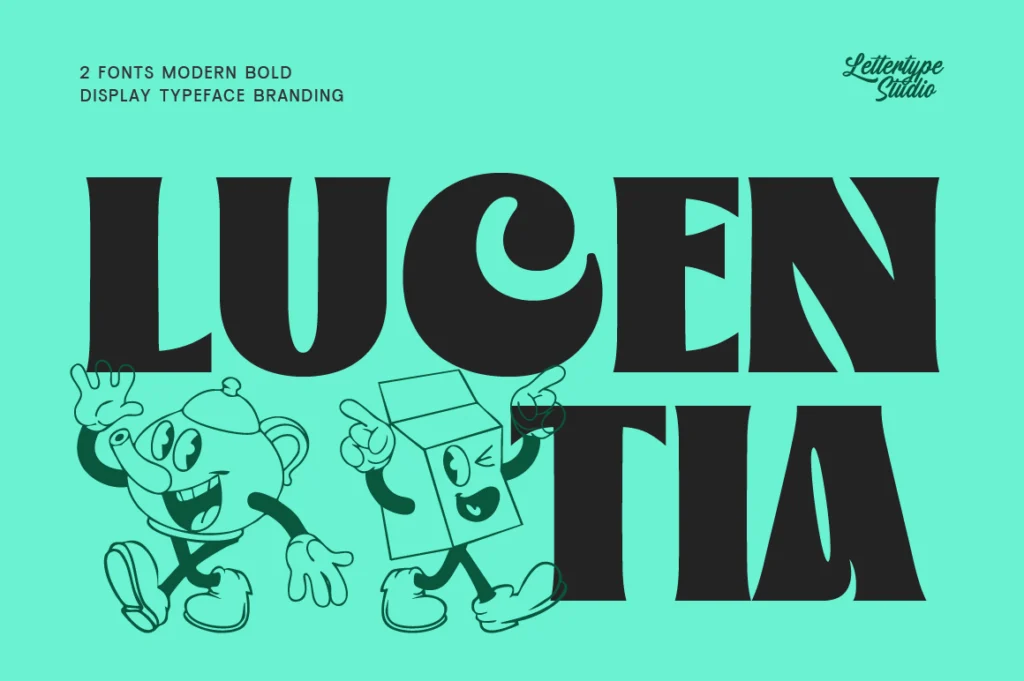
Lucentia is especially suitable for:
- Specialty coffee brands
- Premium coffee bean packaging
- Luxury café logos
- Coffee subscription services
- Editorial coffee magazines
Coffee shops that embrace artisan culture often require typography that balances tradition and modernity. Montegar delivers exactly that feeling. It combines classic elegance with contemporary styling, making it an excellent choice for independent cafés and boutique roasteries.
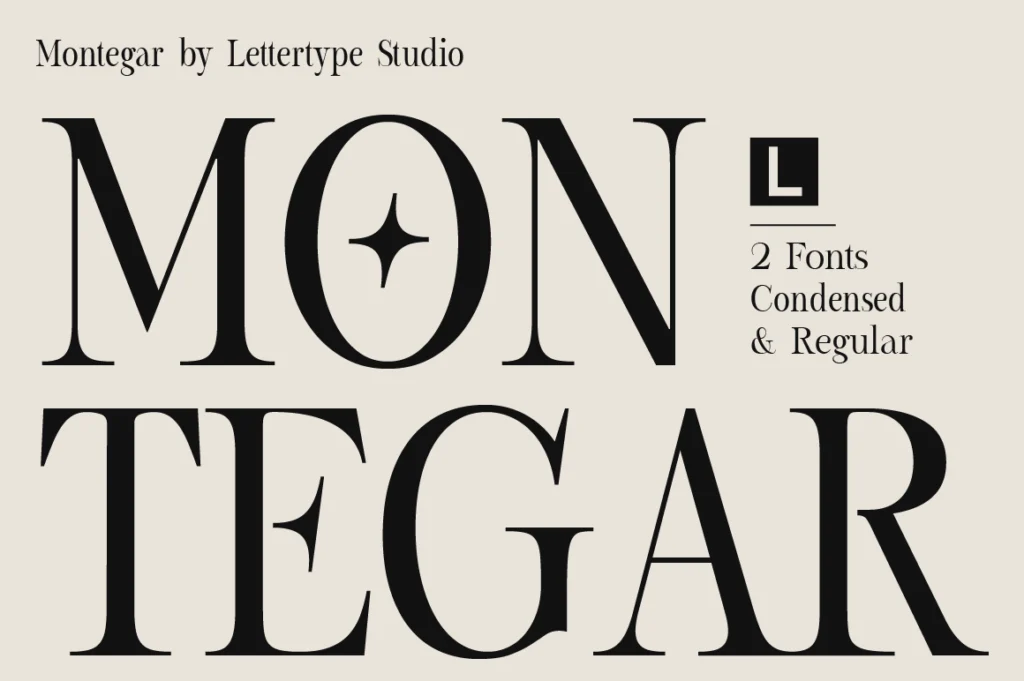
Montegar works beautifully for:
- Artisan coffee roasters
- Café branding
- Seasonal coffee collections
- Coffee event posters
- Premium merchandise
Packaging is often where customers first encounter a coffee brand. Whether displayed on retail shelves or online stores, coffee bags need typography that immediately communicates quality while remaining readable from a distance.
Becaure provides an excellent balance between sophistication and functionality. Its clean yet elegant appearance makes it suitable for product labels, coffee bags, gift boxes, and retail displays.
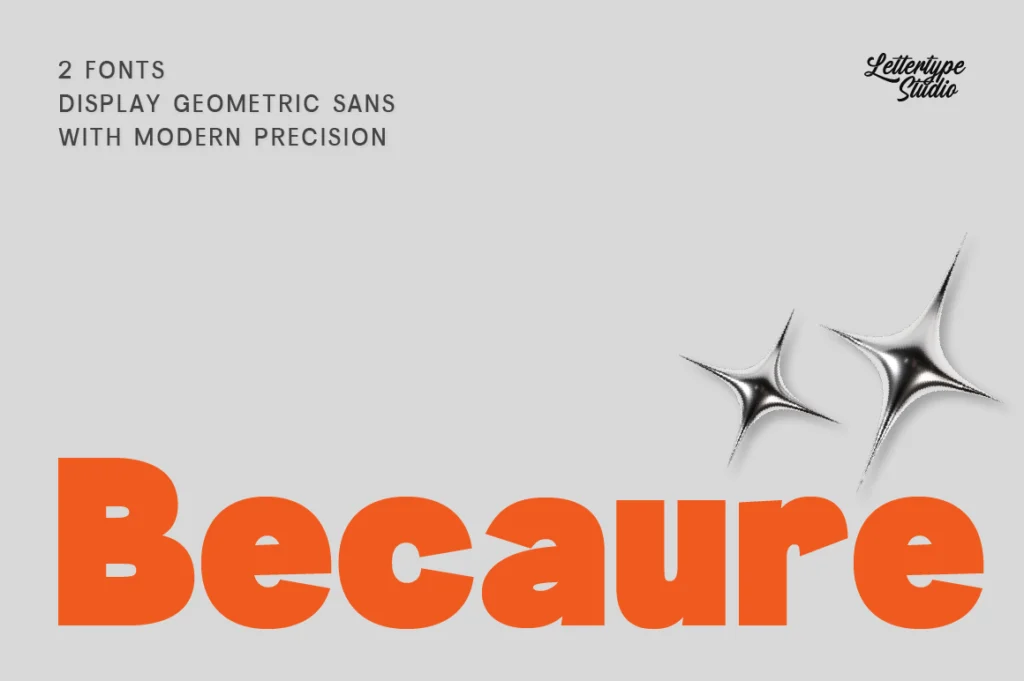
Becaure performs especially well for:
- Coffee bean bags
- Drip coffee packaging
- Coffee gift boxes
- Product labels
- Retail packaging
Not every coffee brand aims for luxury. Many cafés focus on warmth, community, and handcrafted experiences. In these cases, combining serif typography with expressive signature lettering can create a welcoming atmosphere.
Elfariany Duo combines elegant serif characters with a handwritten signature style, making it ideal for brands that want a more personal identity. This pairing works particularly well for cafés that emphasize craftsmanship, storytelling, and customer relationships.
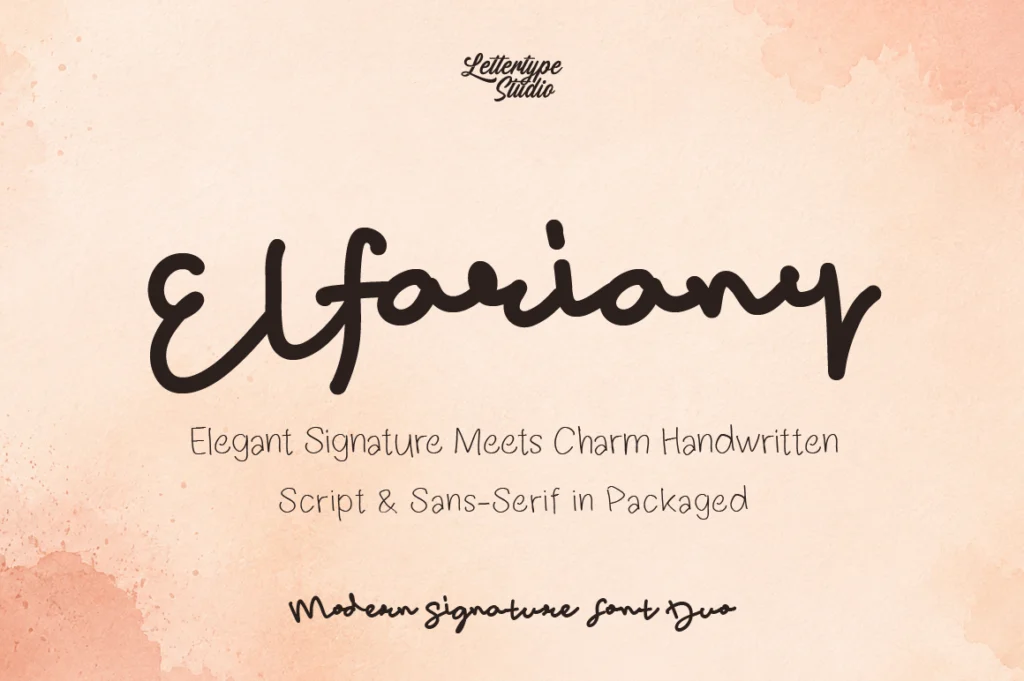
Elfariany Duo is recommended for:
- Café logos
- Signature coffee blends
- Handcrafted product labels
- Coffee shop merchandise
- Lifestyle branding
Minimalist cafés have become increasingly popular over the past decade. Scandinavian-inspired interiors, neutral colors, and clean branding require typography that feels modern without becoming cold.
Merta Sans provides excellent clarity and versatility. Its clean structure works beautifully across menus, takeaway cups, websites, mobile apps, and café signage. The font maintains readability while supporting a contemporary brand image.
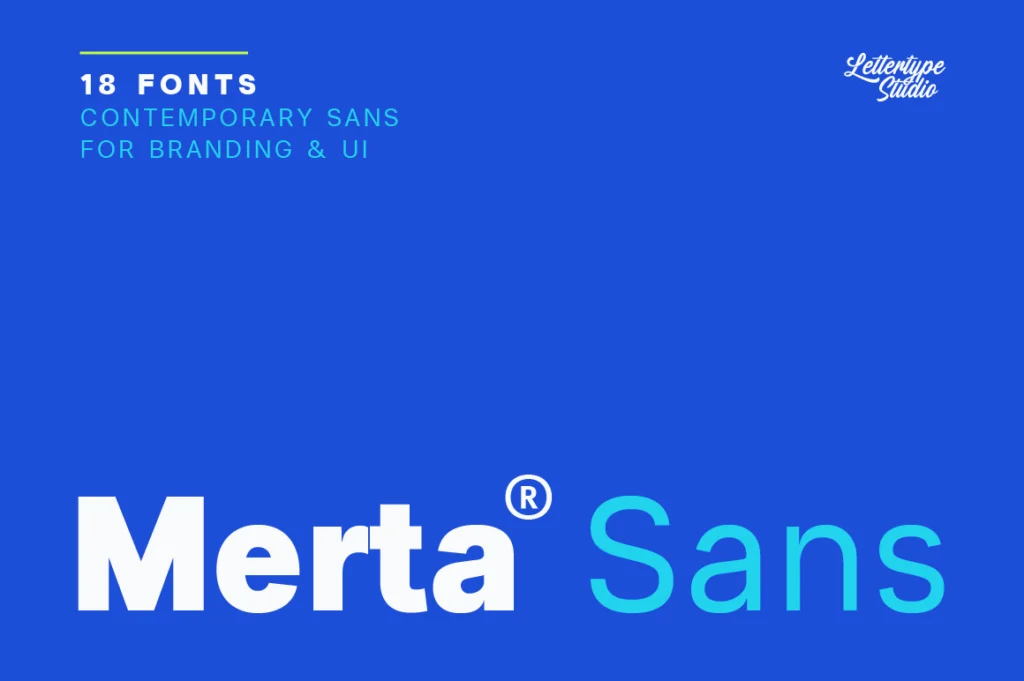
Merta Sans is particularly suitable for:
- Café menus
- Directional signage
- Mobile ordering apps
- Coffee loyalty cards
- Website interfaces
Typography should also reflect the target audience. Specialty coffee enthusiasts often appreciate premium editorial aesthetics, while neighborhood cafés may benefit from warmer and friendlier typography. Understanding customer expectations helps brands create stronger emotional connections.
Menu design is another area where typography significantly affects customer experience. Well-organized menus improve readability, highlight signature drinks, and encourage purchasing decisions. Fonts should establish a clear hierarchy without overwhelming customers.
Coffee packaging must perform across multiple environments. A product may appear on supermarket shelves, e-commerce websites, Instagram feeds, and café displays. Typography should remain consistent and recognizable regardless of size or platform.
Conclusion
Great coffee deserves great branding. Typography is one of the most powerful tools for creating memorable coffee packaging and café identities. Fonts such as Lucentia, Montegar, Becaure, Elfariany Duo, and Merta Sans offer different personalities that help coffee brands communicate craftsmanship, quality, and authenticity. By choosing typography that reflects your vision and maintaining consistency across every touchpoint, you can build a coffee brand that stands out in an increasingly competitive market.